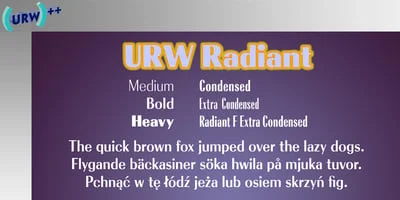
Radiant Font
Radiant Font is perfect for solar energy company branding, wellness spa signage, inspirational coaching materials, light therapy clinic logos, spiritual illumination centers, and positive energy campaign graphics.
Radiant Font is exciting because it embodies luminous beauty and divine radiance, delivering a brilliantly crafted typeface that captures the essence of inner light, spiritual glow, and the transformative power of positive energy.
The Radiant Font family includes luminous variations: Radiant Light, Radiant Regular, Radiant Medium, Radiant Bold, glowing alternates, and decorative elements that enhance the font's brilliant and uplifting character.
Illuminate your designs with Radiant Font, a brilliantly crafted typeface that brings divine luminosity and positive energy to your most uplifting design projects. This glowing font excels in creating memorable branding for renewable energy companies, holistic healing centers, motivational speakers, and wellness organizations that help people discover their inner radiance and live with greater vitality and purpose. The luminously designed letterforms feature flowing curves and radiant proportions that simulate the warm glow of sunlight and the brilliant sparkle of positive energy while ensuring excellent readability across all wellness and spiritual applications. Perfect for solar panel installations, light therapy treatments, spiritual retreat materials, and positive psychology programs that need to convey healing energy and transformative illumination, this font connects with individuals seeking to brighten their lives and share positive energy with others. Each character glows with divine radiance, making every inspirational message feel like a beam of light that brings hope and healing to those seeking positive transformation. Radiant Font transforms ordinary communications into luminous blessings that inspire audiences to embrace their inner light while radiating positivity that brightens the world around them.